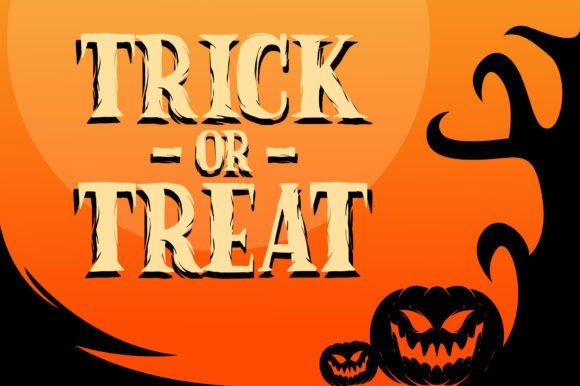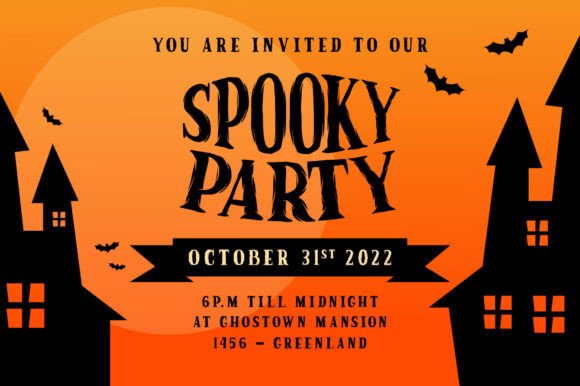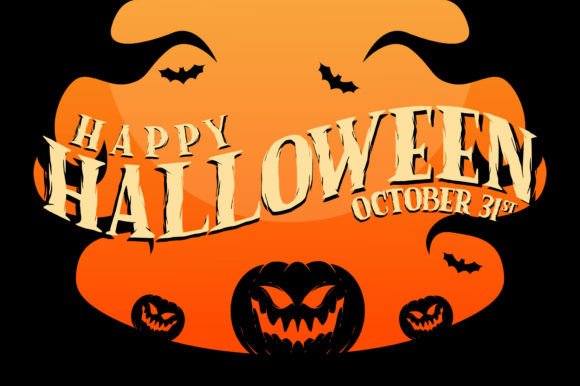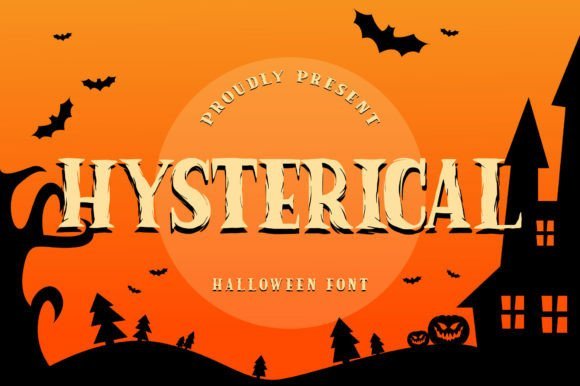
Introduction to Hysterical Font
Hysterical is a Halloween serif font suitable for any project that needs to stand out.
Try it on banners, posters, covers, magazines, and more .
Key Features of Hysterical Font
Why Choose Hysterical Font?